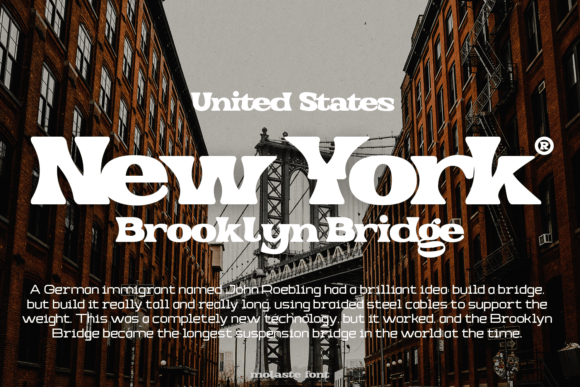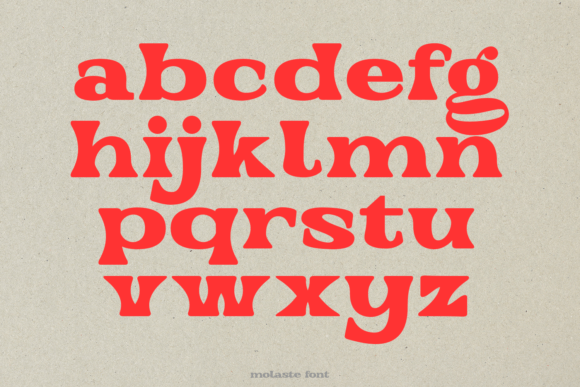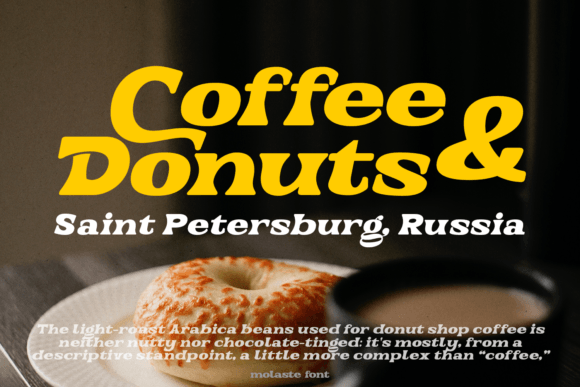
Introduction to Molaste Font
Have you ever stared at a blank canvas, waiting for inspiration to strike? That’s exactly where I found myself, searching for the perfect font to elevate my creative project. As a designer, I know how crucial it is to find the right typography to convey the message and evoke the desired emotions. And then, I stumbled upon Molaste Font – a retro gem that instantly caught my attention.
Molaste Font is more than just a design resource; it’s a time capsule that transports you back to the 80s with its vintage serif style. This high-quality font is perfect for creating a unique and eye-catching visual identity for your brand or product. With its transparent background and free download option, you can experiment with different combinations to achieve a comfortable reading experience.
What sets Molaste Font apart is its versatility and ability to add a touch of sophistication to any design project. Whether you’re working on a logo, invitation, or product packaging, this font is sure to make your design stand out. As a designer, I can attest to the value of having a reliable and high-quality font like Molaste Font in your toolkit.
Key Features of Molaste Font
- High-Quality Typography: Molaste Font offers a premium quality design resource perfect for creative projects.
- Perfect for Digital Designs: Molaste Font is ideal for digital designs, such as logos, icons, and graphics, due to its high-quality and versatility.
Honest Review: Molaste Font
I recently had the opportunity to work with the Molaste Font, and I must say it’s been a game-changer for my creative projects. This design resource has really helped me elevate my work and make it stand out.
- ✨ High-quality font with a unique and modern design
One of the things that really impressed me about the Molaste Font was its versatility. It’s perfect for use in logos, branding materials, and even digital products. I’ve been using it for all my recent projects, and the results have been fantastic.
Of course, like any design resource, the Molaste Font isn’t perfect. ⚠️ One of the limitations I’ve found is that it’s not as widely supported as some other fonts. However, this hasn’t been a major issue for me, and I’ve been able to find workarounds.
Overall, I’m thoroughly impressed with the Molaste Font. It’s a high-quality, versatile design resource that’s perfect for any creative project. If you’re looking for a new font to add to your collection, I highly recommend giving it a try.
Experiment with different font sizes, colors, and combinations to achieve the desired visual effect. Also, consider pairing Molaste Font with other high-quality design resources to create a cohesive design.
The Molaste Font is ideal for various design projects, including social media graphics, blog posts, and marketing materials. Its transparent background makes it easy to overlay text on images or use it as a standalone design element.